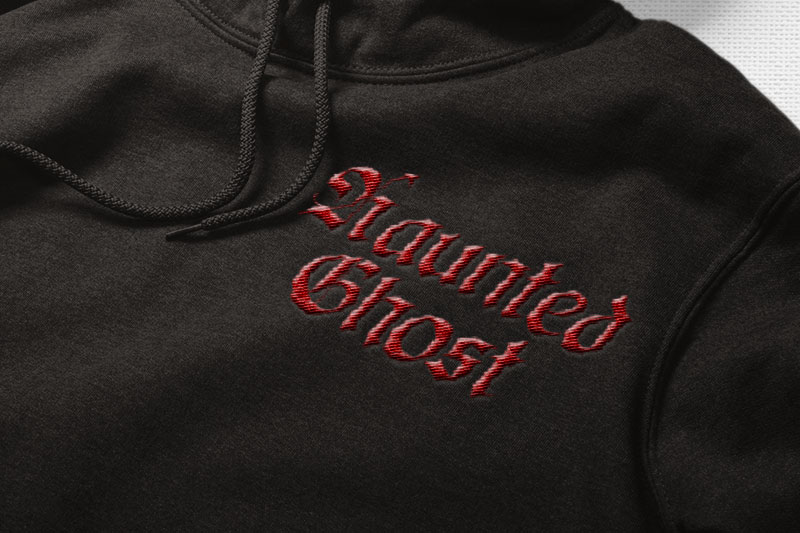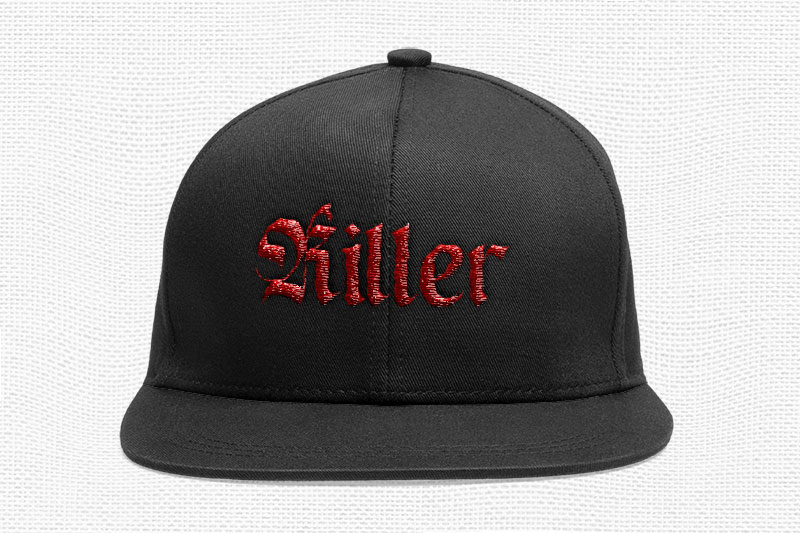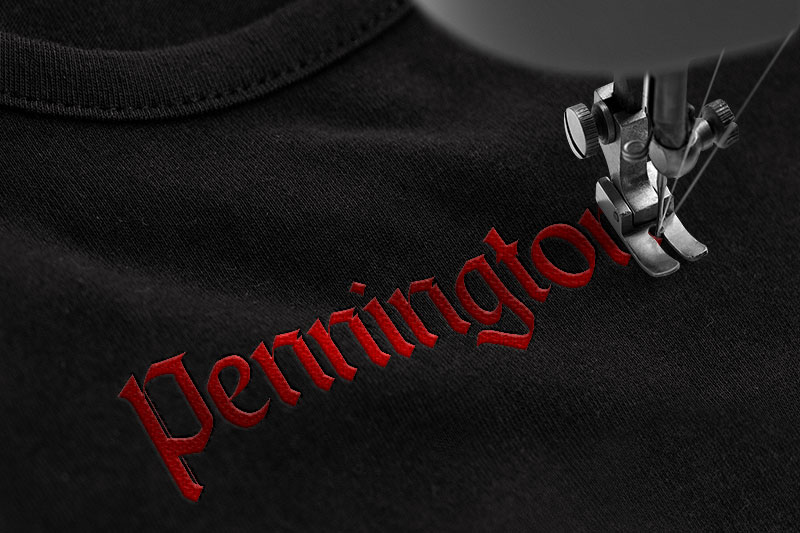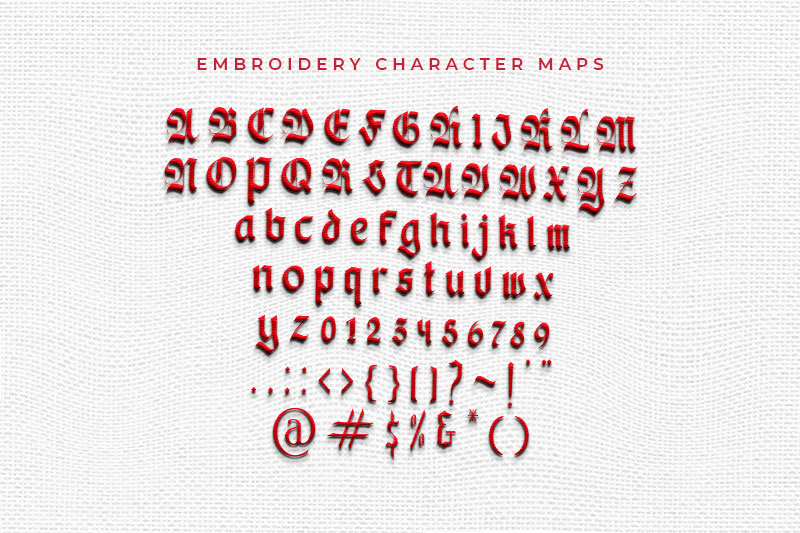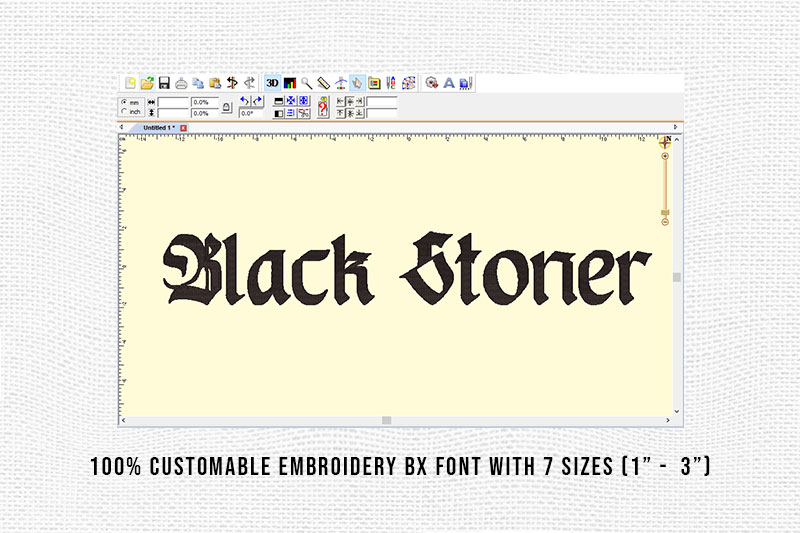
The Kong font is back with a new type of embroidery font. Black Stoner Embroidery Font was created to increase the variety of options available to Embroidery font users. Of course, this is an advantage for you, because the font you use will not be monotonous. The Kong font provides two types of Black Stoner Embroidery Font, Embroidery font, and digital fonts. It can be used as embroidery on various items and can also be used as a complement to various digital containers.
Black Stoner Embroidery Font has characteristics upright shape, easy to distinguish between letters, and unique shapes. This font is illegible. However, this still carries the impression that is usually attached to embroidery fonts, namely simple, unique, and modern.
Given the exciting characteristics it has created, Black Stoner Embroidery Font is one of the best fonts to use on hats, T-shirts, jackets, and hoodies. In addition, it is suitable to be combined with several of your lovely products, such as stickers for television, motorcycle, car, and bicycle. Font Kong provides Embroidery font for digital and print use. Both of them will not eliminate the element of cool and modernity posed by Black Stoner Embroidery Font.
We can digitally apply Black Stoner Embroidery Font to promote your product on social media or websites. This will show the modern and simple impressions. This will attract interest and add to the impression of the reader of this font.